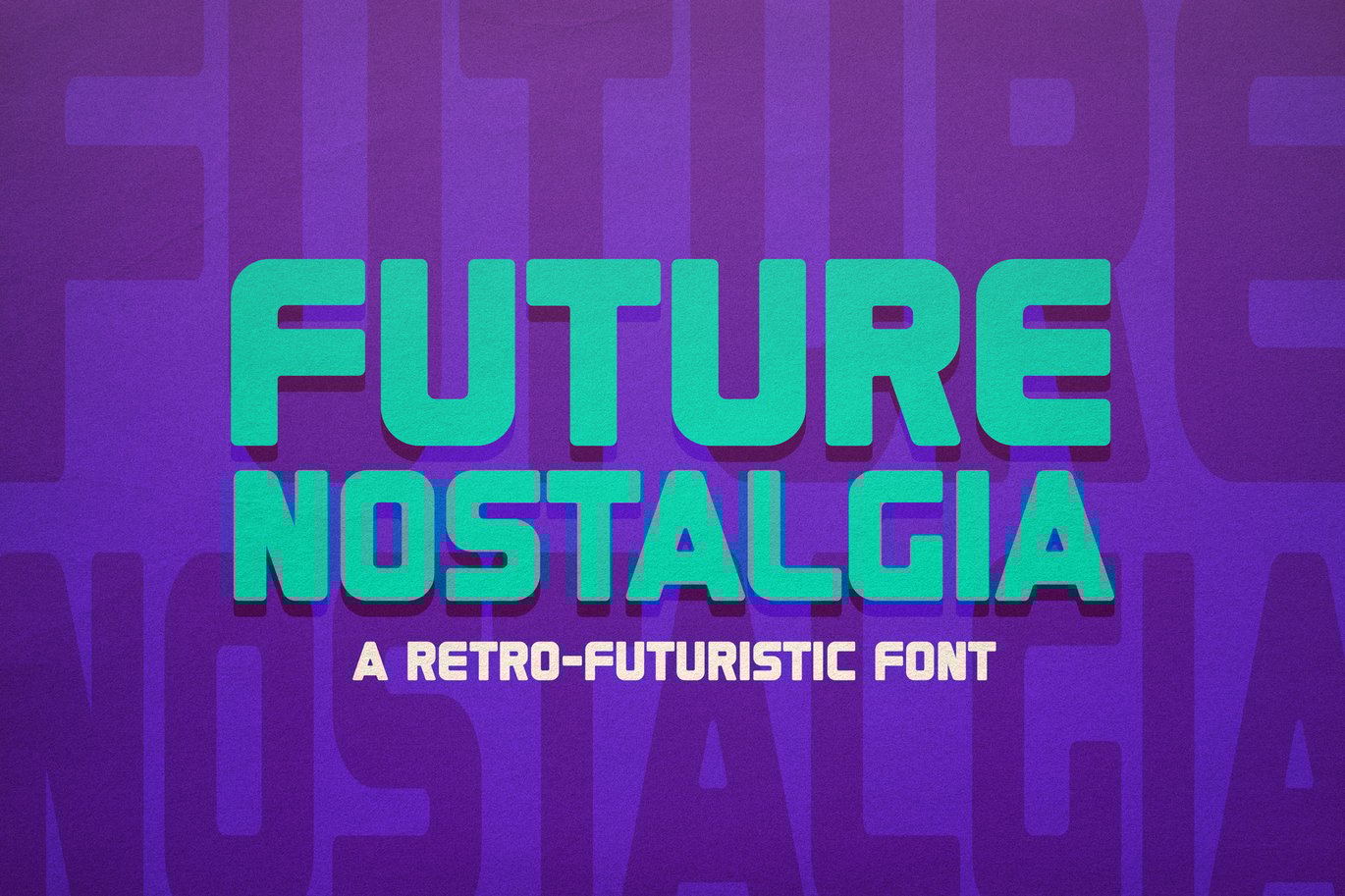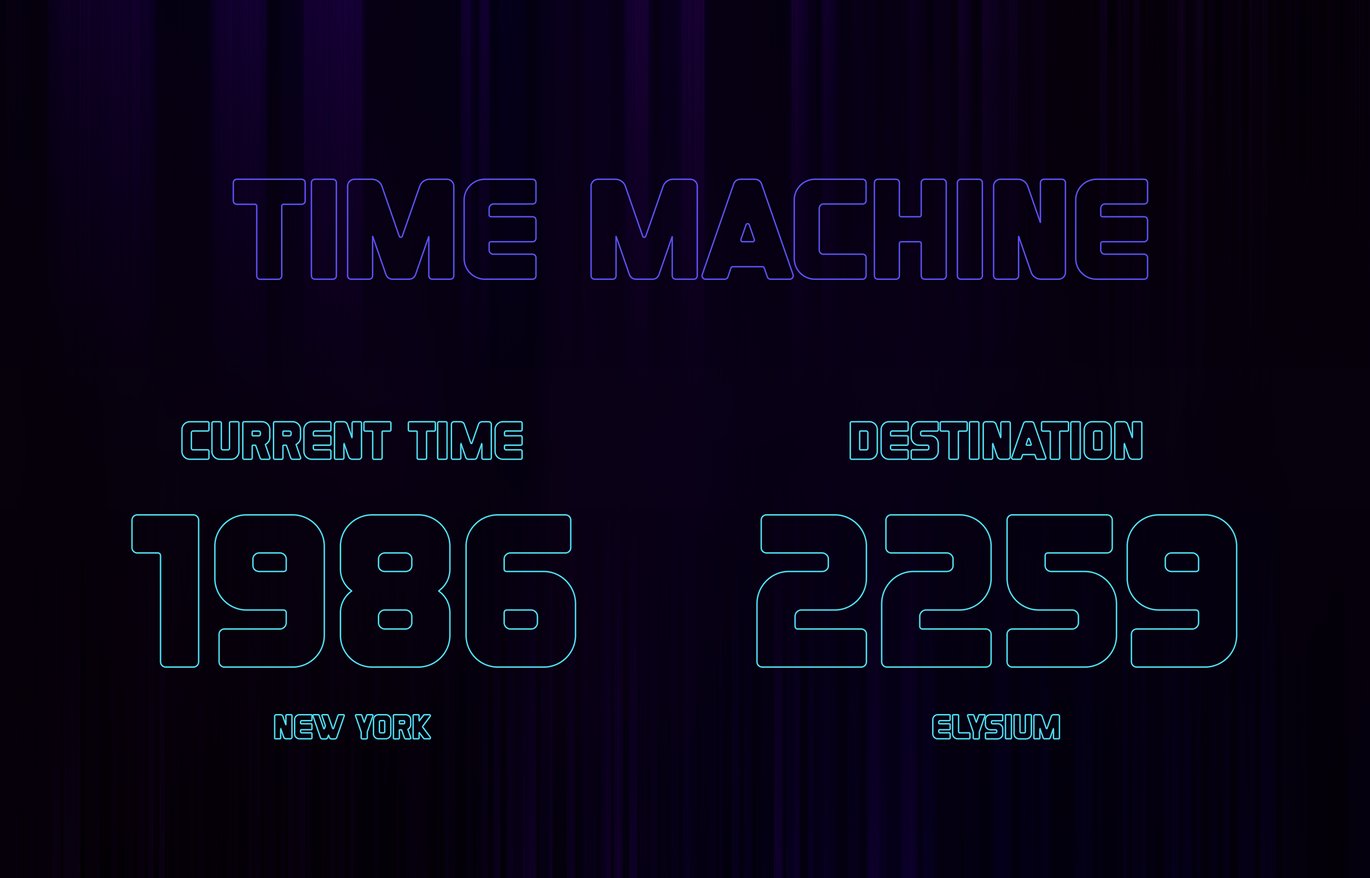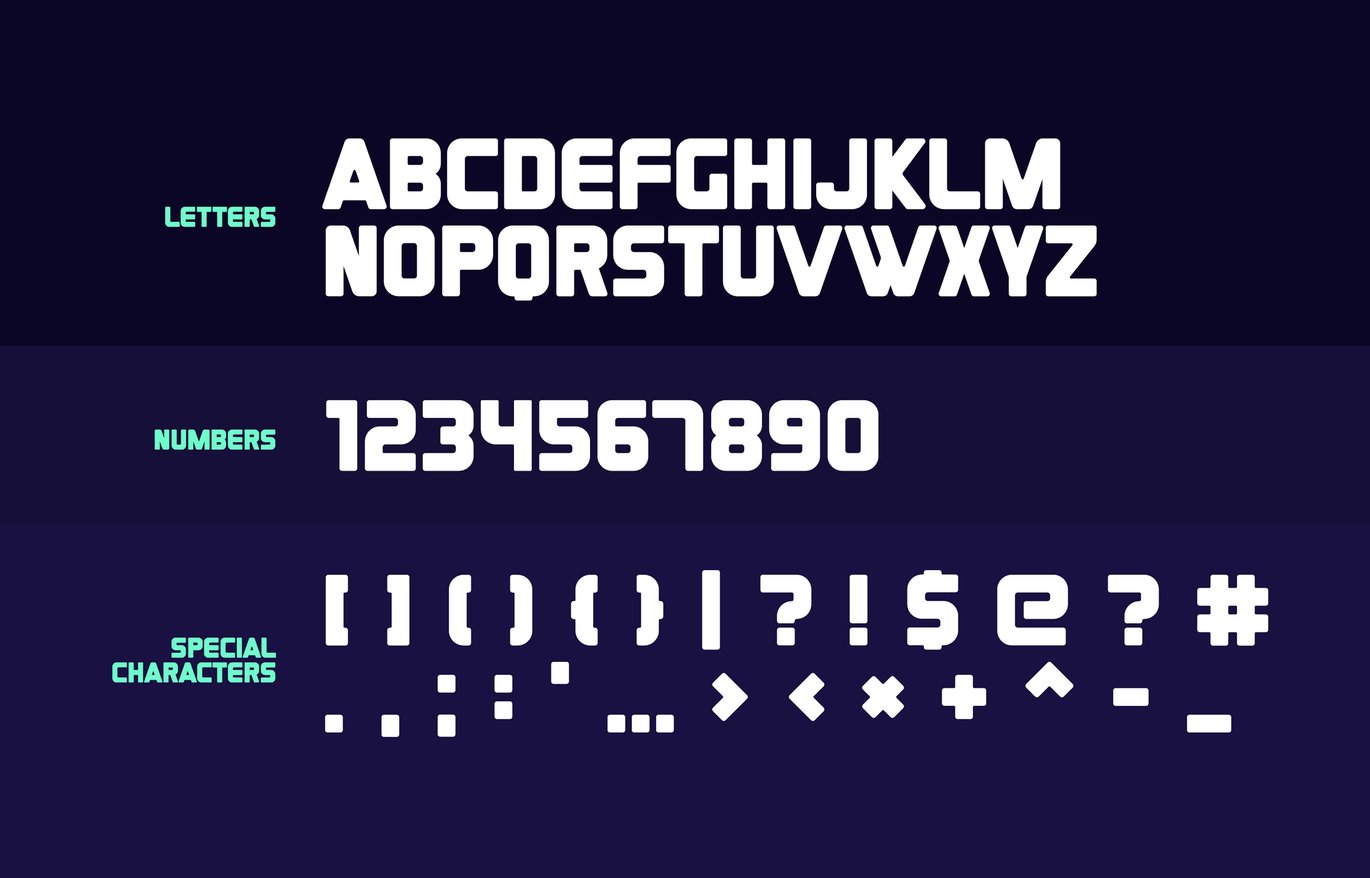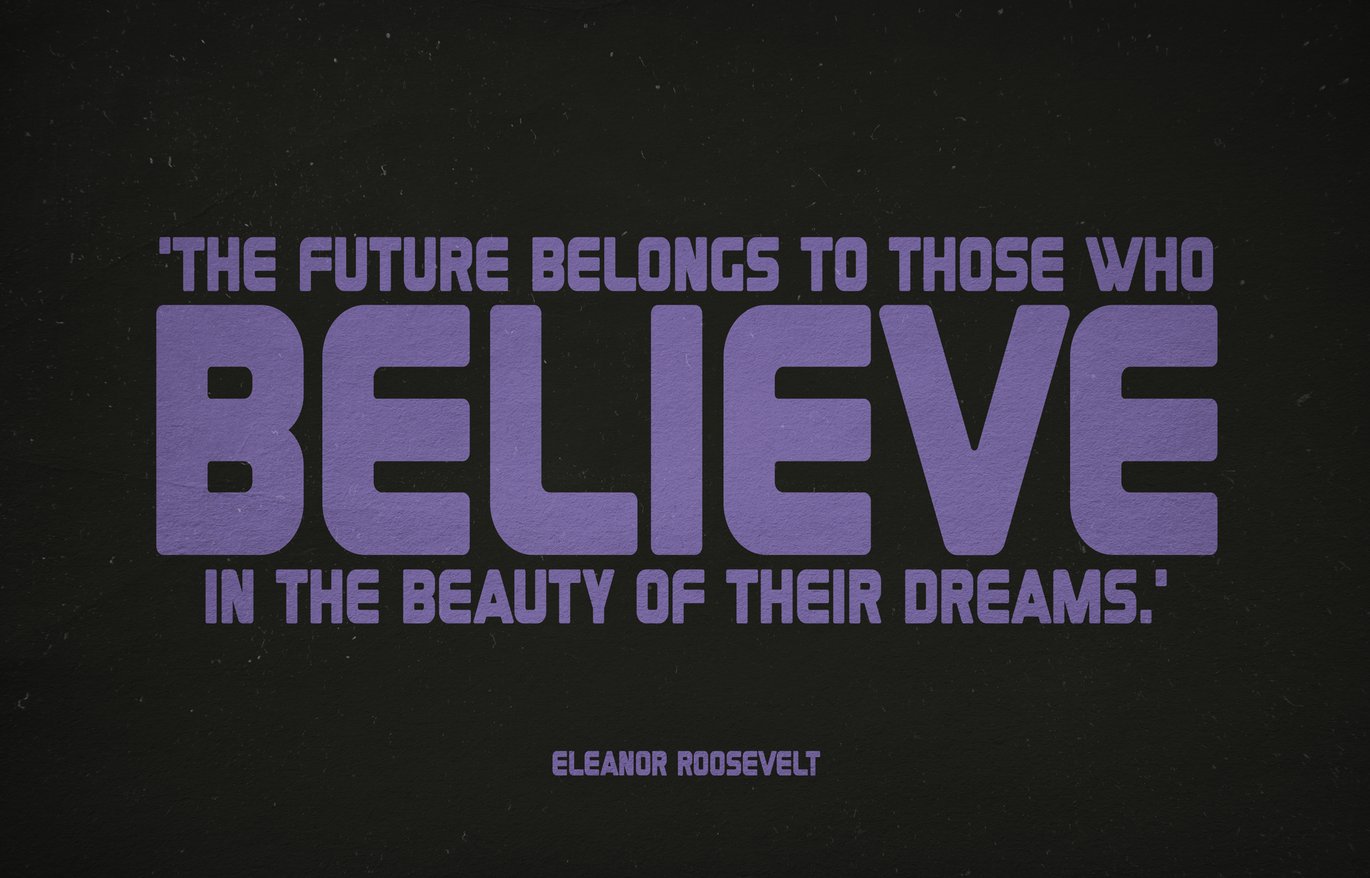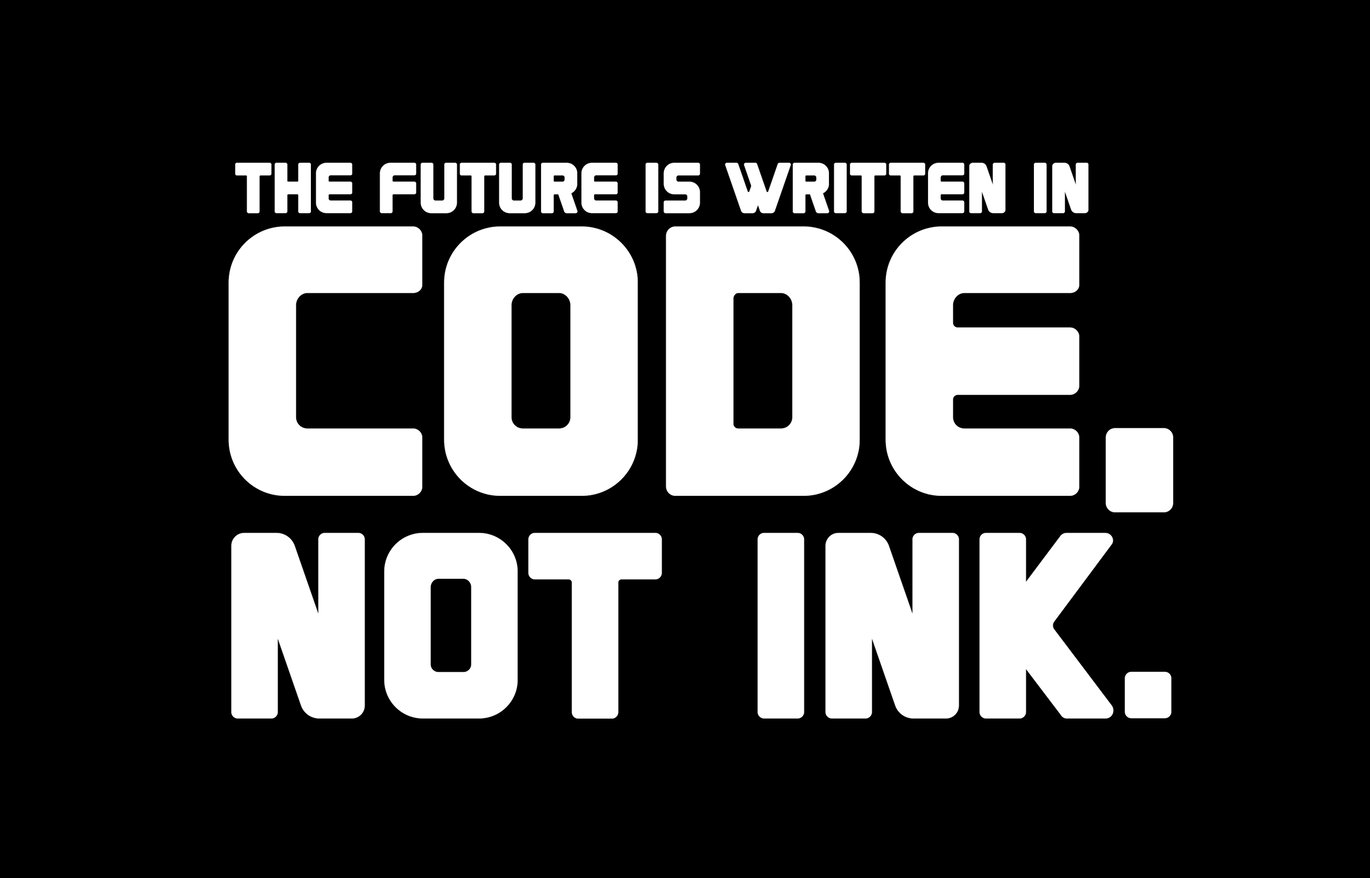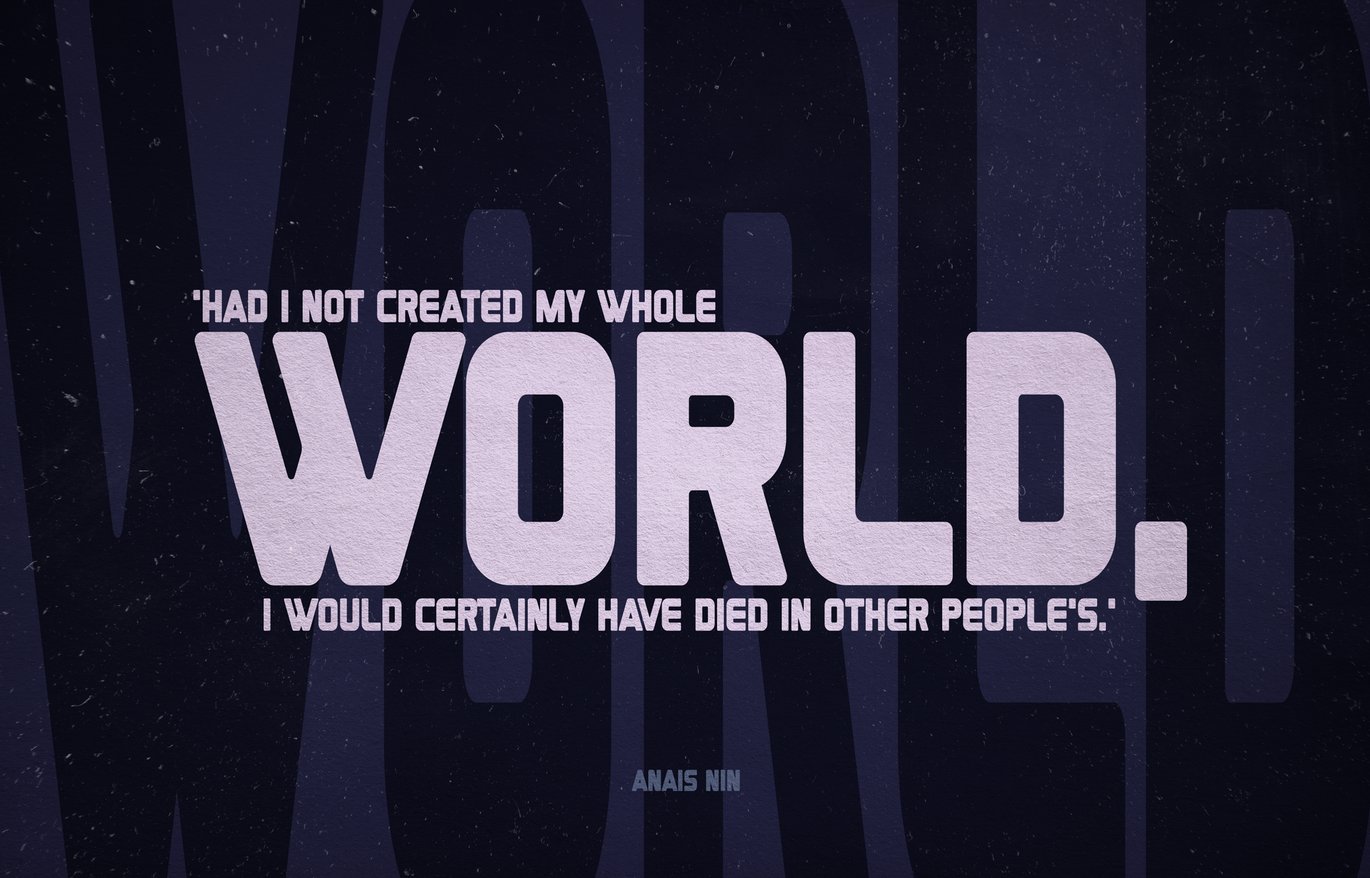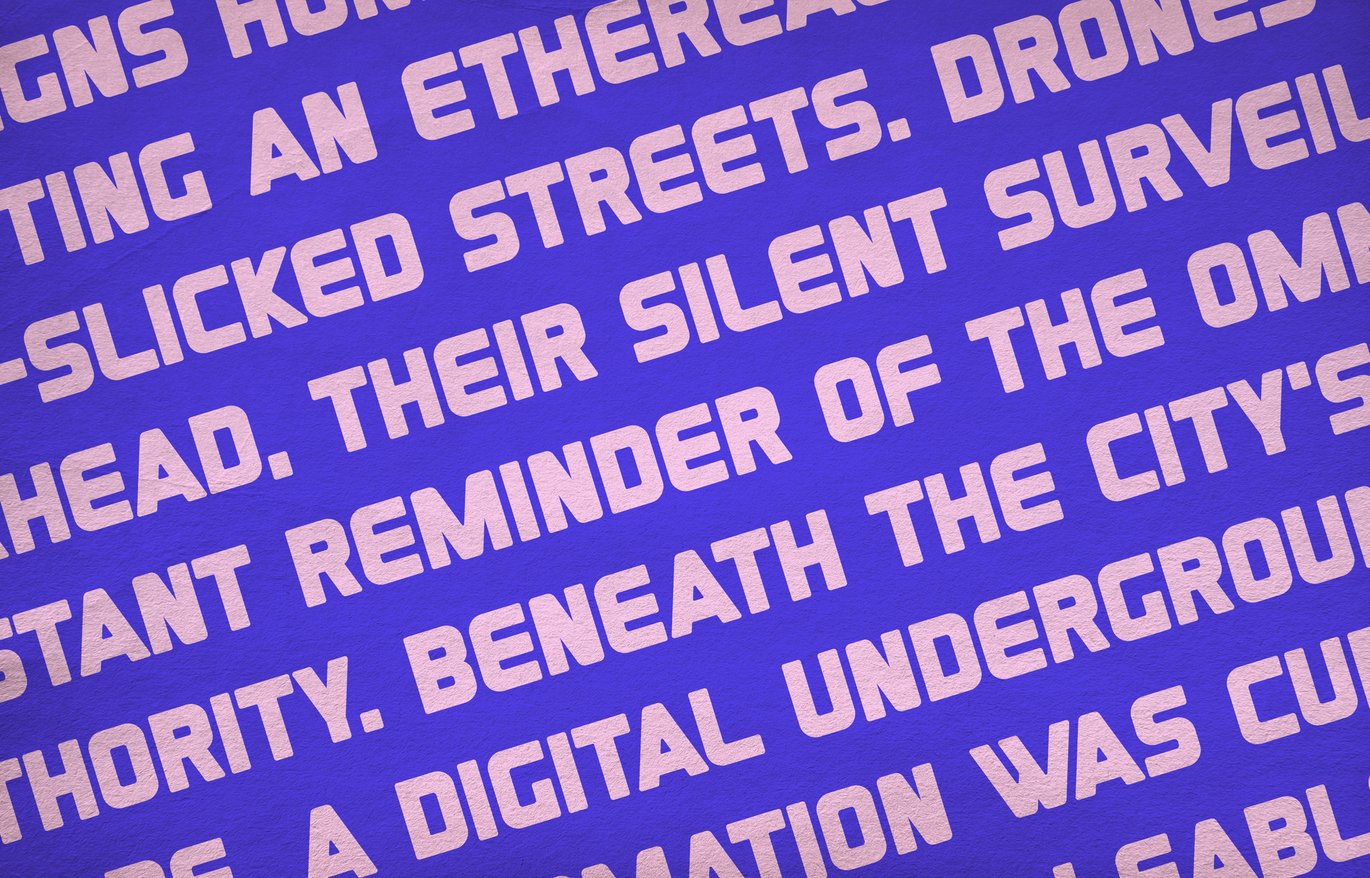
Future Nostalgia Font
A retro-futuristic font that captures the spirit of the 80s and 90s. A harmonious blend of retro and futuristic design elements. Its bold, geometric shapes and rounded corners evoke a sense of nostalgia, while its clean lines and contemporary feel push the boundaries of typography. Ideal for creating retro-futuristic designs, album covers, movie posters, video game titles, that celebrate the past while looking to the future.